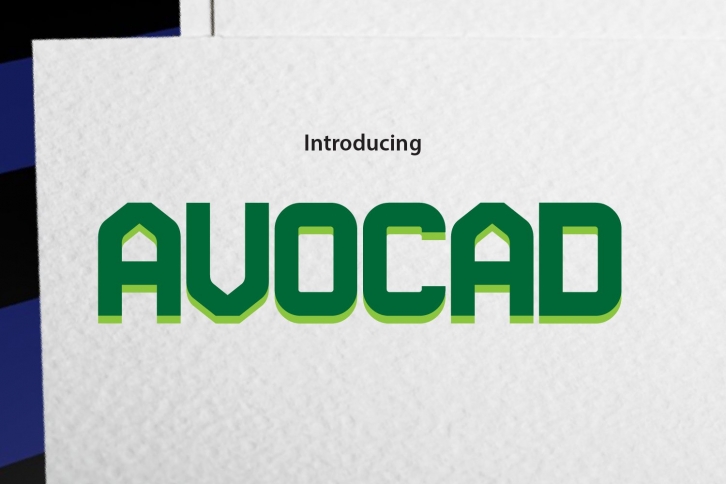
AVOCAD is a great font that was designed by daonlyaan. Imagine the amount of combinations you can create using this font! The archive is 12.28 MB and it was released on April 30, 2020. AVOCAD looks beautiful on wedding invitations, greeting cards, logos, posters, labels, t-shirt designs, logos, business cards and is perfect for use in ink or watercolor works, fashion, magazines, packaging and food menus, children's books and more!